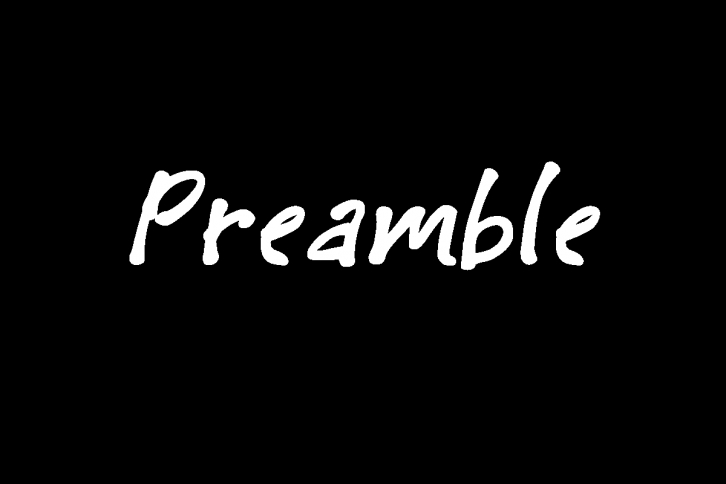
Preamble is a great decorative script, with enough character and weight to be utilized for displays to your projects. with a traditional appeal, Preamble is a great font that straddles modernity with a more classic vibe.